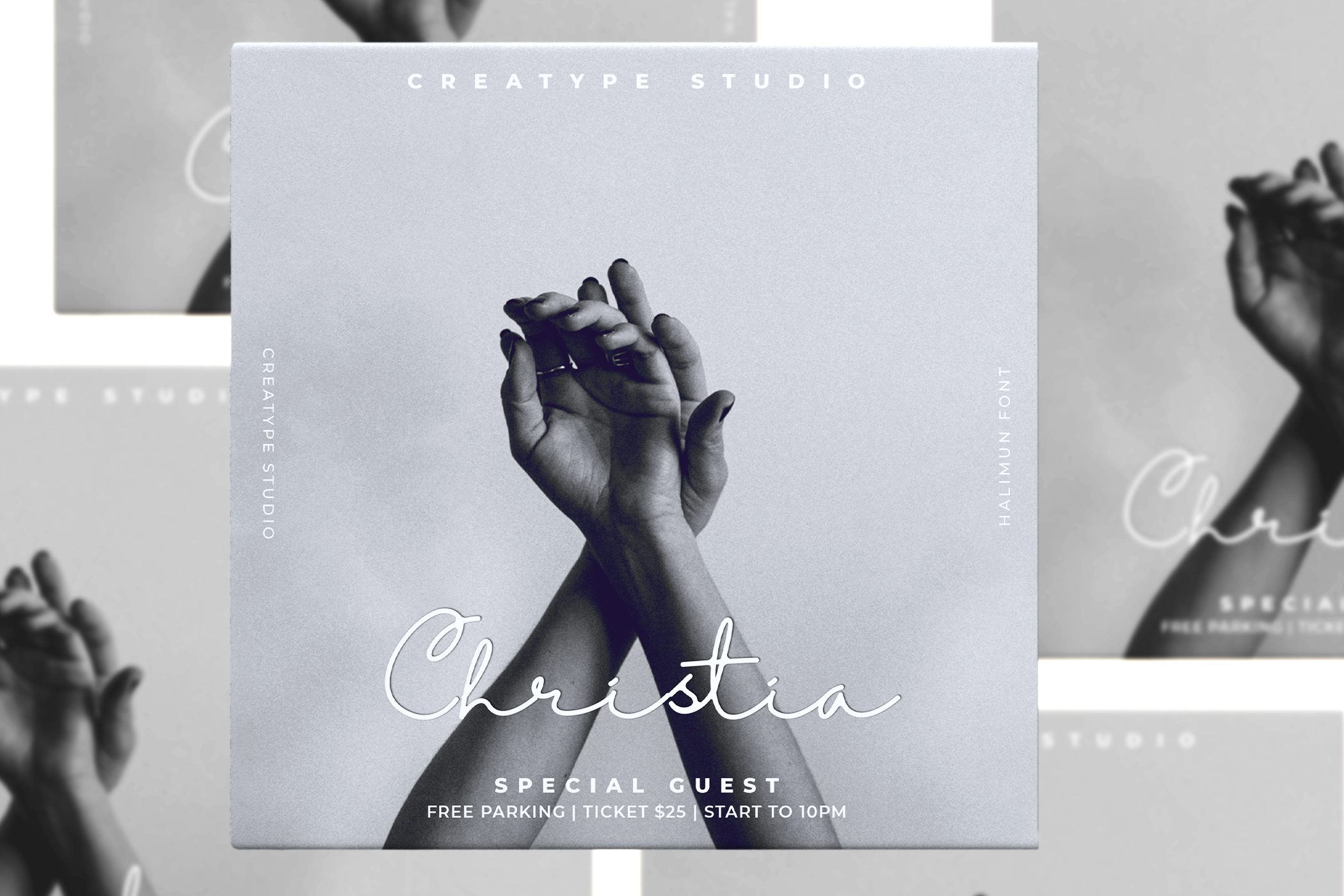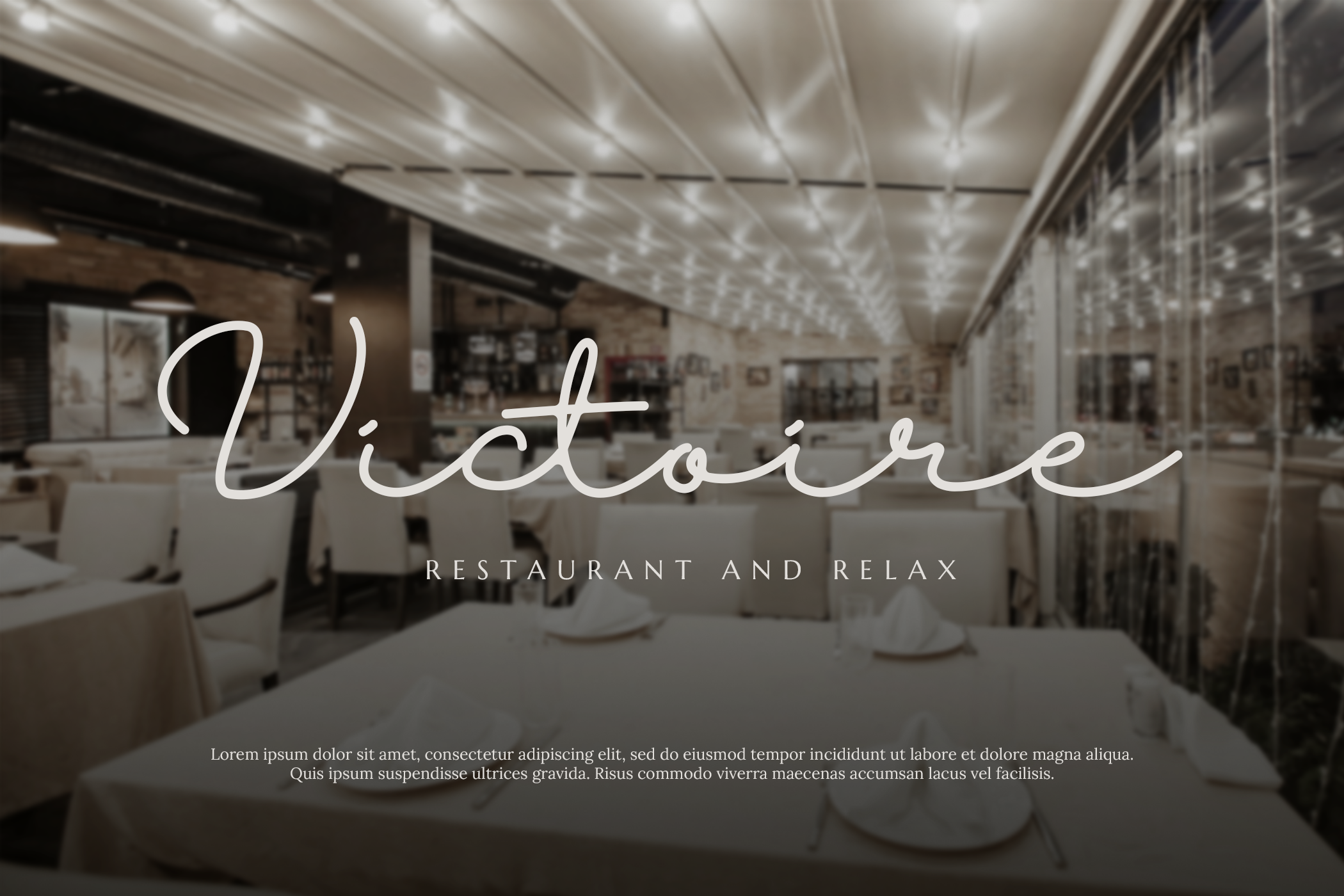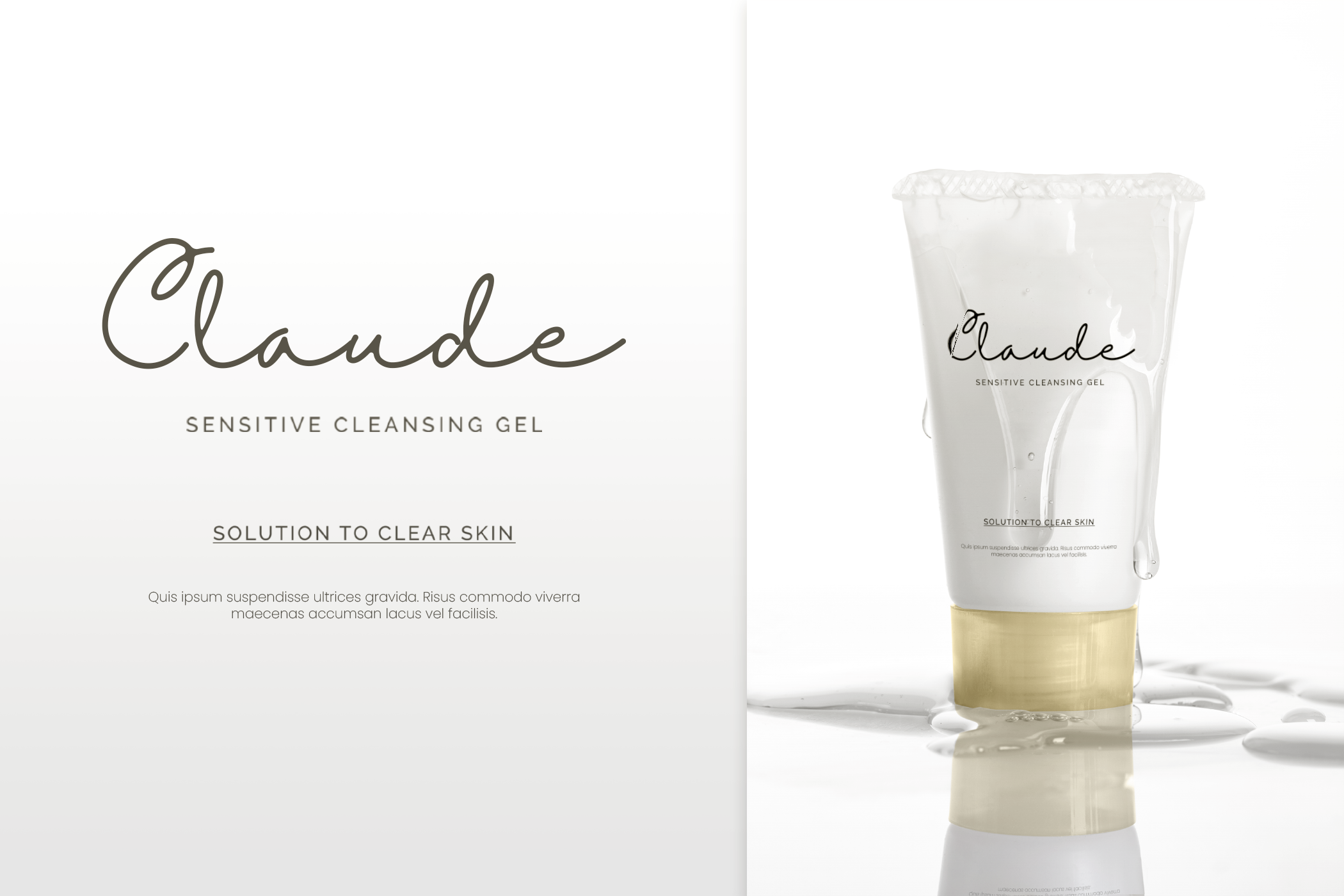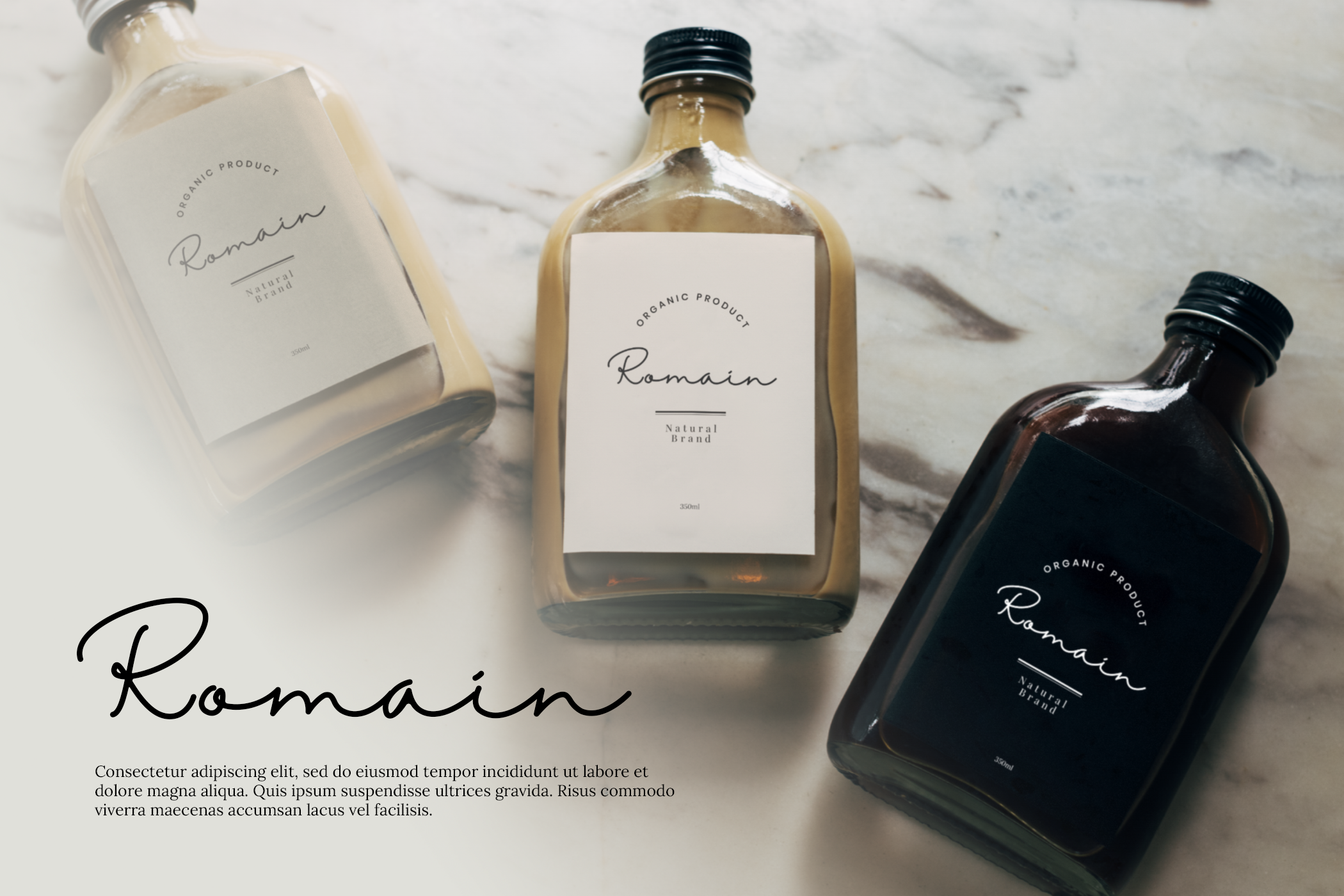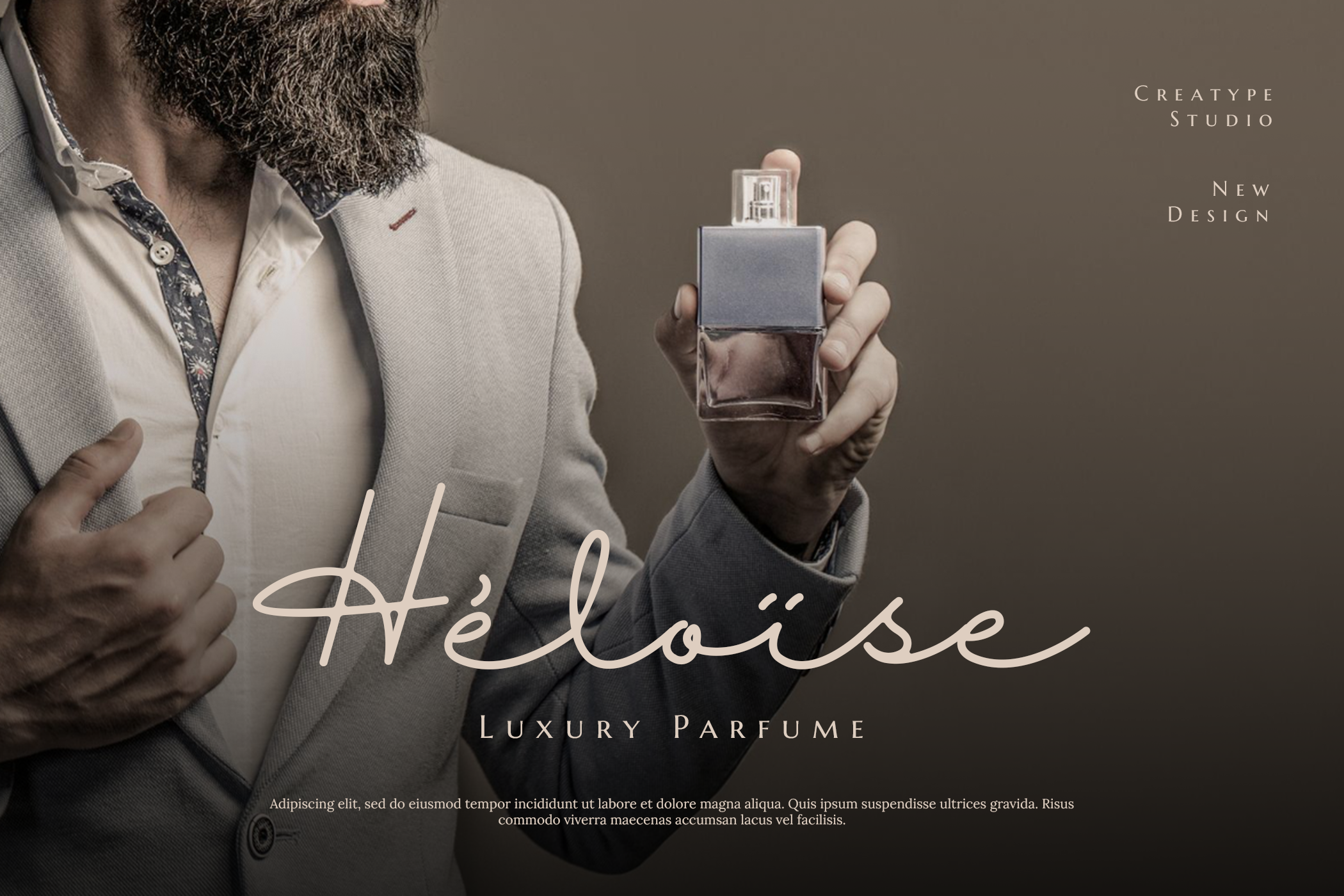
Halimun Font: Best Handwritten Style Font that You Should Know
What is your favorite font style? If you are a fan of script-style typefaces, you will love this new typeface from Creatype Studio, Halimun font. Halimun is taken from Sundanese, a light mist caused by tiny water droplets suspended in the air.
But this “halimun” is also the name of a mountain in Indonesia. No wonder some letters in this font are similar to mountain shapes. Let’s learn more about the Halimun typeface and see how to apply it to your design.
What is Halimun Font
The Halimun font is a new font that was introduced and designed by Creatype Studio. This font also uniquely combines handwriting and signature styles, creating a modern, sophisticated, and stylish look.
In addition, this font type provides a modern yet natural feel, giving you an ideal choice for a project that needs an elegance and sophistication touch.
Halimun Font Features
The Halimun font provides various features and capabilities that make it versatile and functional. Here are some parts of the Halimun typeface.
• This font offers ligature and style alternatives and further customization options for users.
• Compatible with multiple languages and comes with many glyphs, including numbers, punctuation, uppercase, and lowercase letters. This is because this font has multi-language support.
• This flowing script font is full of character, featuring bouncing letters with just the right bounce and minimal resizing to keep the text alive.
• The large-cap sits below the baseline, giving the text an eye-catching look.
What is Halimun Best For?
The Halimun font is ideal for a variety of applications and projects. Halimun’s script style is perfect for projects that need a modern but informal feel.
This font has a natural handwritten flow, making it perfect for projects like:
• signatures
• logo design
• photography
• social media posts
• watermarks
• advertisements
• branding
• product design
• invitations
• posters
• wedding designs
• product packaging
• stationery
• special events.
Any design that requires a handwritten touch will fit this type of font. With naturally flowing lines, this design is an excellent choice for any project that requires a personal touch.
5 Examples of Using Halimun Font
This article will show you some design examples with this font. The model will help you guide whether the Halimun font is the best for your vintage style design. Let’s check it below.
1. Announcement
halimun font for announcement
Here is an example of using the font Halimun for an announcement, especially an event announcement. This font fits vintage style design with monochrome colors. It’s also fit for social media announcements which are very good for gaining engagement.
2. Coffee Product Logo
Halimun Font for Coffee Product Logo
If you have a coffee or coffee shop brand that targets people around 25-35, this font will pop up very well with your brand. It gives you a classy and aesthetic vibe. You also can use it as your logo. It’s simple but gives you a charming prince vibe for your cafe.
3. Restaurant Name
Halimun Font for Restaurant Name
Halimun font is typically a handwriting style that can make you feel like the restaurant is using it as the restaurant name and logo, and you should use this font. It will be best to pair it with a French restaurant brand with a romantic dinner vibe.
4. Skincare Product  Halimun Font for Skincare Product
A skincare product that targets women with 25-35’s will be good with this font. The font makes your skincare product look luxurious and elegant, which women find well. You can always use this font with a good combination of the box.
5. Parfum Product
Halimun Font for Parfum Product
A brand that calls itself a luxury product should read this article. The font also makes the perfume product feel more luxurious. Therefore, you can utilize this beautiful font to enhance more perfume enthusiasts.
Do You Want to Try Halimun Font on Your Project?
Halimun is a beautiful and elegant script-style typeface that you can use in comprehensive design projects. The handwritten and script-style fonts bring a touch of naturalness and style to any project.
The glyphs and multi-language support make it accessible and easy for many people to use. Halimun font is an excellent choice for creating stunning and eye-catching designs, whether a professional designer, a beginner, or a DIY (Do-It-Yourself) lover.